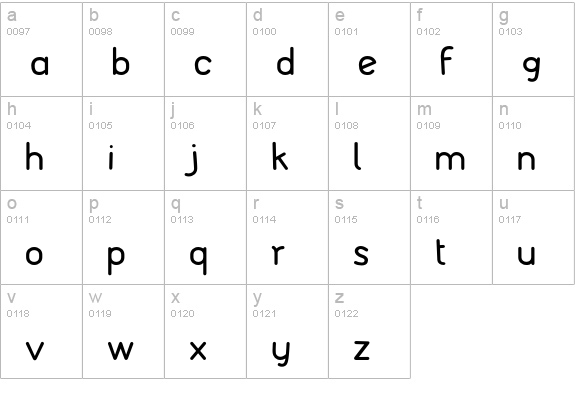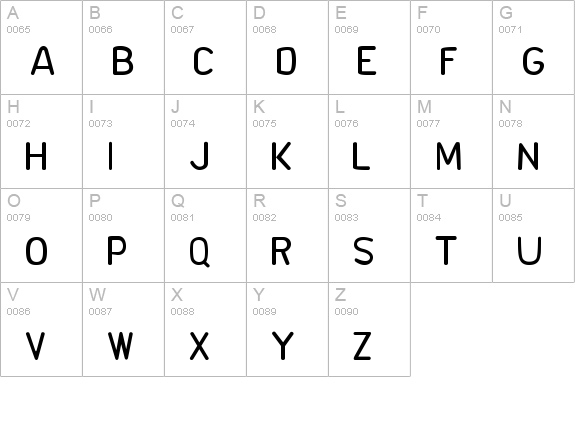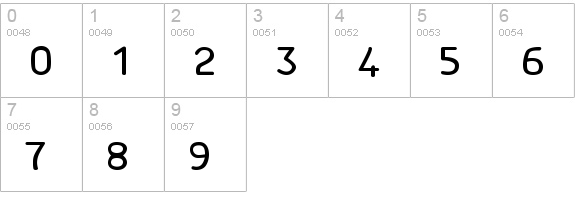
FontSoupGerman-Regular is the standard, neutral variant in the FontSoupGerman typeface family \xE2\x80\x94 well suited to general body text, paragraphs, and standard typographic work.
FontSoupGerman-Regular is a versatile and stylish font that combines elegant curves with a touch of modernity. This font exudes a sense of sophistication and creativity, making it perfect for a wide range of design projects. Whether you're creating a logo, designing a website, or working on a print ad, FontSoupGerman-Regular will add a unique flair to your work. What's even better is that FontSoupGerman-Regular is completely free to download at FontsMarket.com. This means you can enjoy using this high-quality font without any cost, making it an excellent choice for both personal and commercial projects. With its clean lines and legible design, FontSoupGerman-Regular is sure to make a lasting impression on your audience. Download it today and start adding a touch of elegance to your designs!